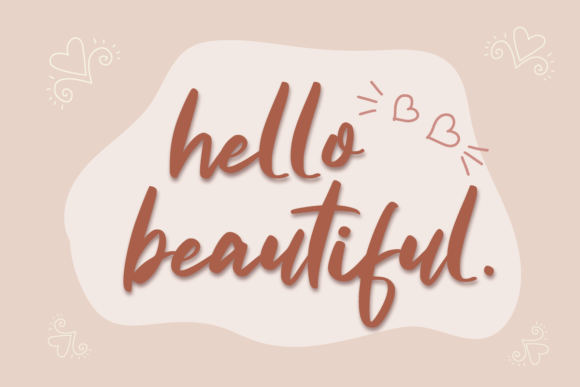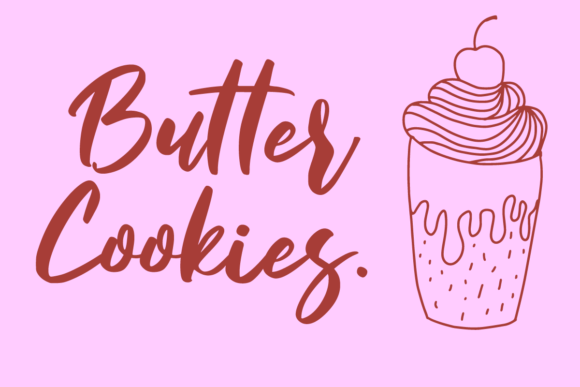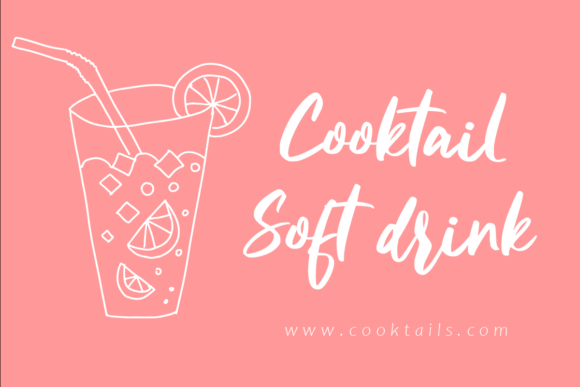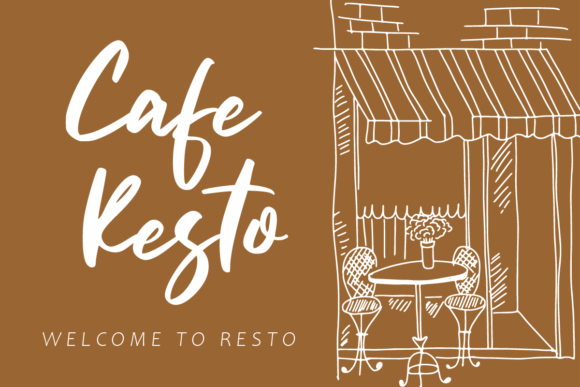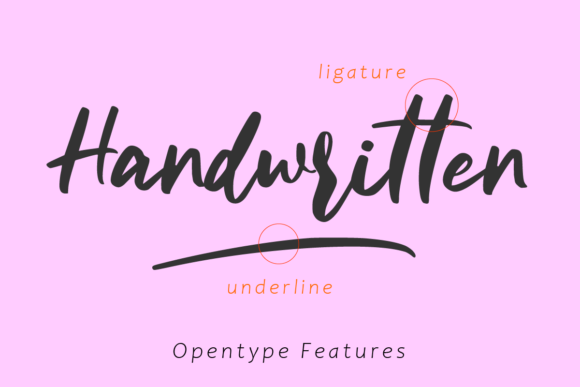
About Butter Notes Font
Butter Notes is a stylish and graceful script font. Fall for its ravishing style and use it to create gorgeous wedding invitations, beautiful stationary art, eye-catching social media posts, and much more!